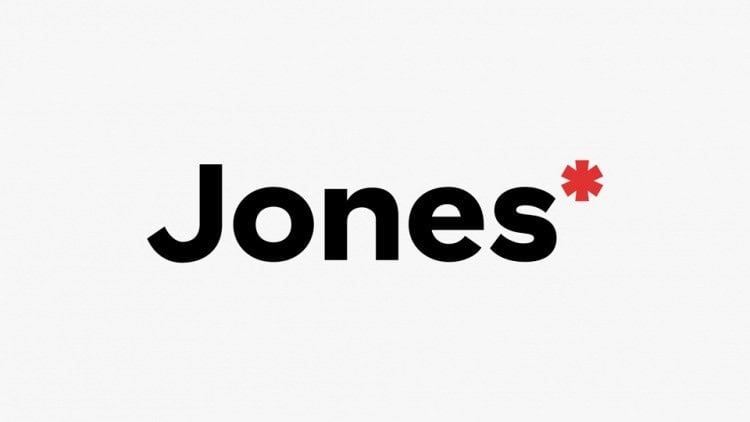
Jones* Sans Serif Font
It’s a simple, and futuristic sans serif font based on simplicity and clarity. The family comes with 5 weight ranging from Book to Black, including matching Italics.
Jones* is a versatile font family for branding, UX, web, packaging and editorial projects.